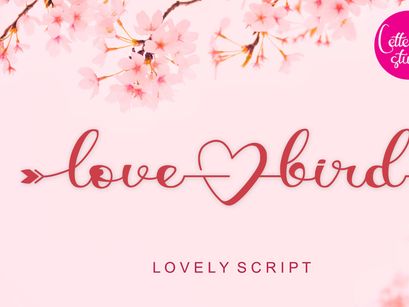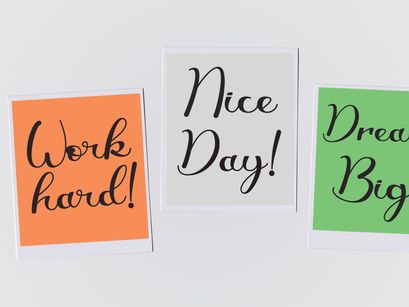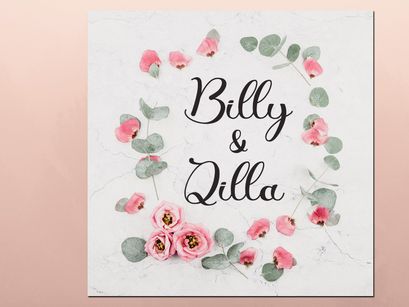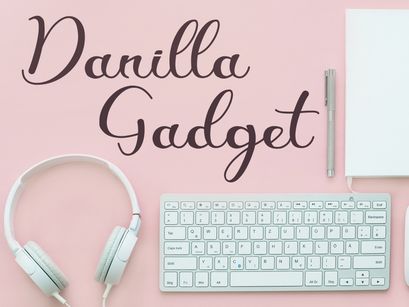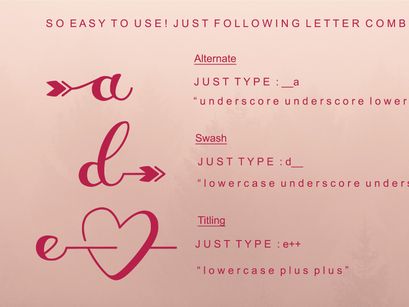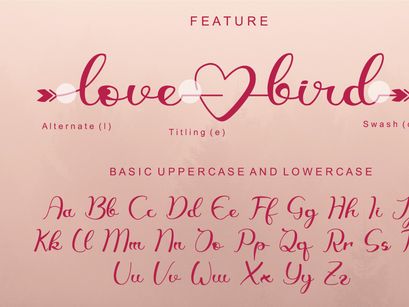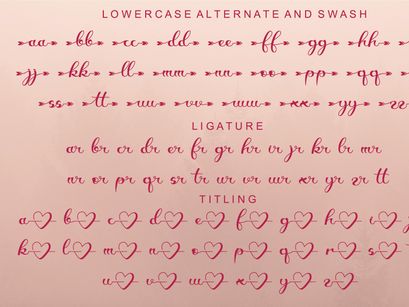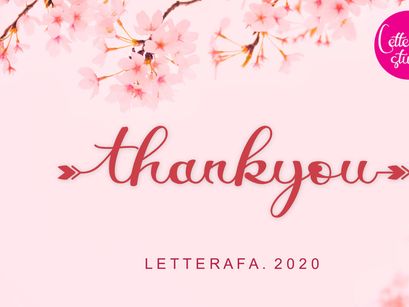
Lovebird
Lovebird, from Letterafa Studio, is a lovely script font. It has flowing letters that will give your designs a unique and sweet look with the lovely titling features. Lovebird Font is perfect for; greeting cards, package design, brand identity, craft design, any DIY project, book titles, wedding invitations, packaging, and more.